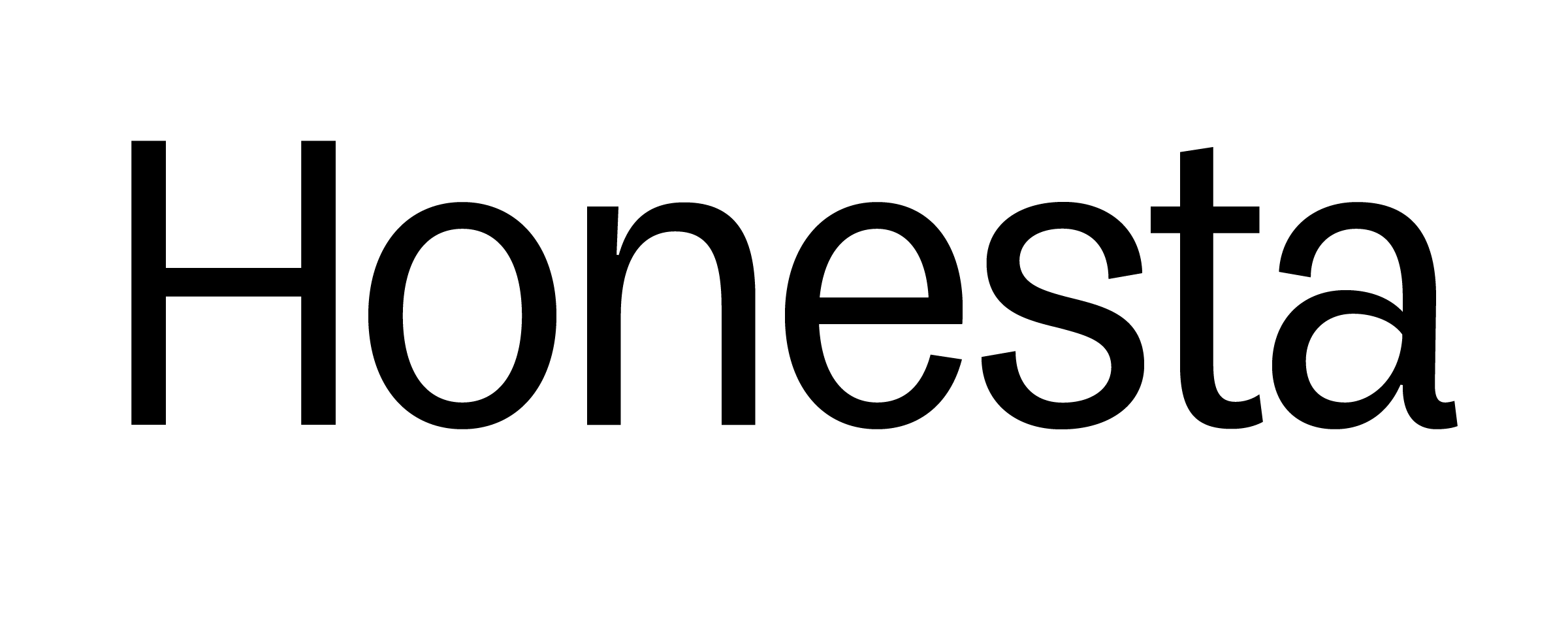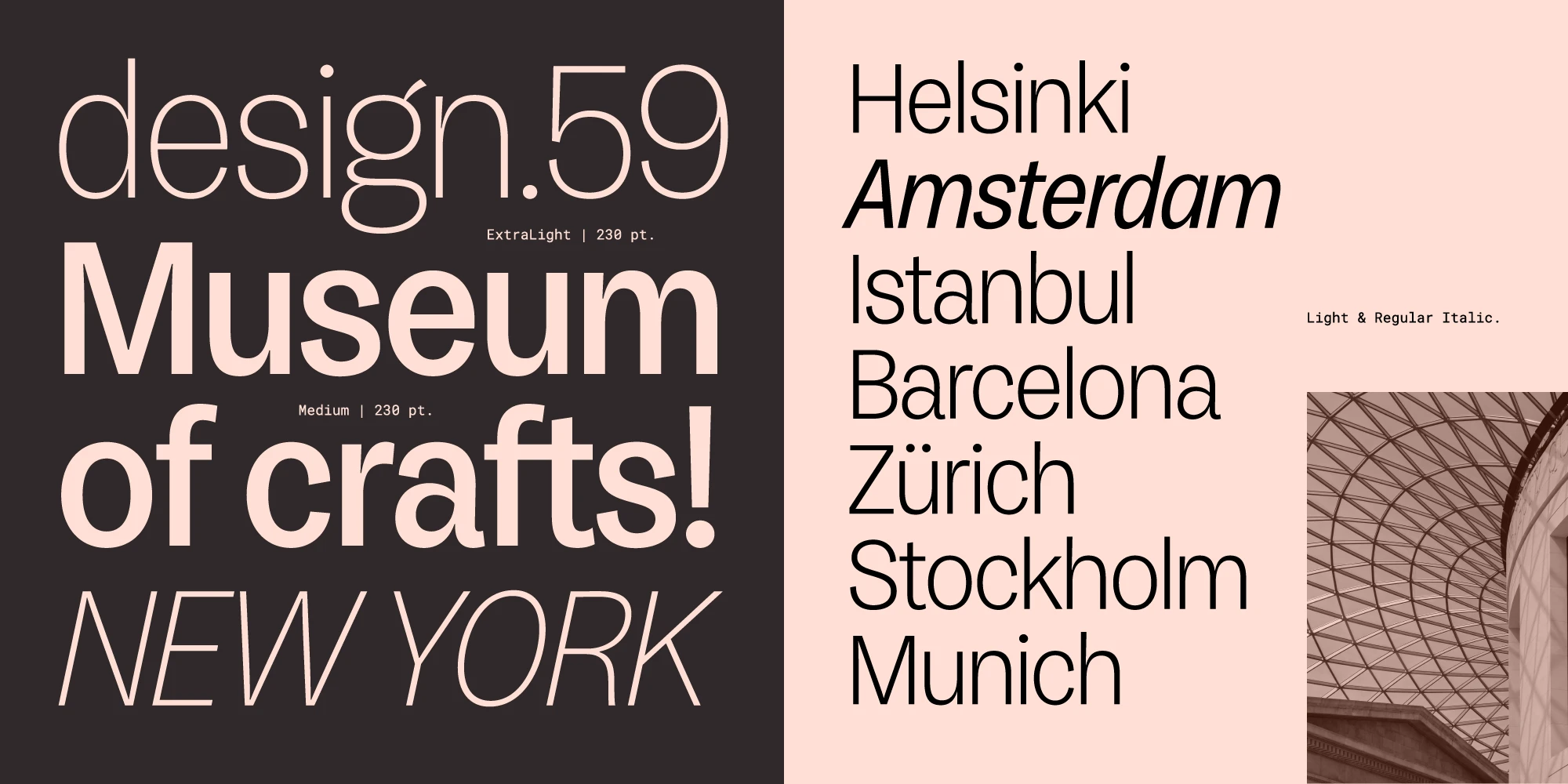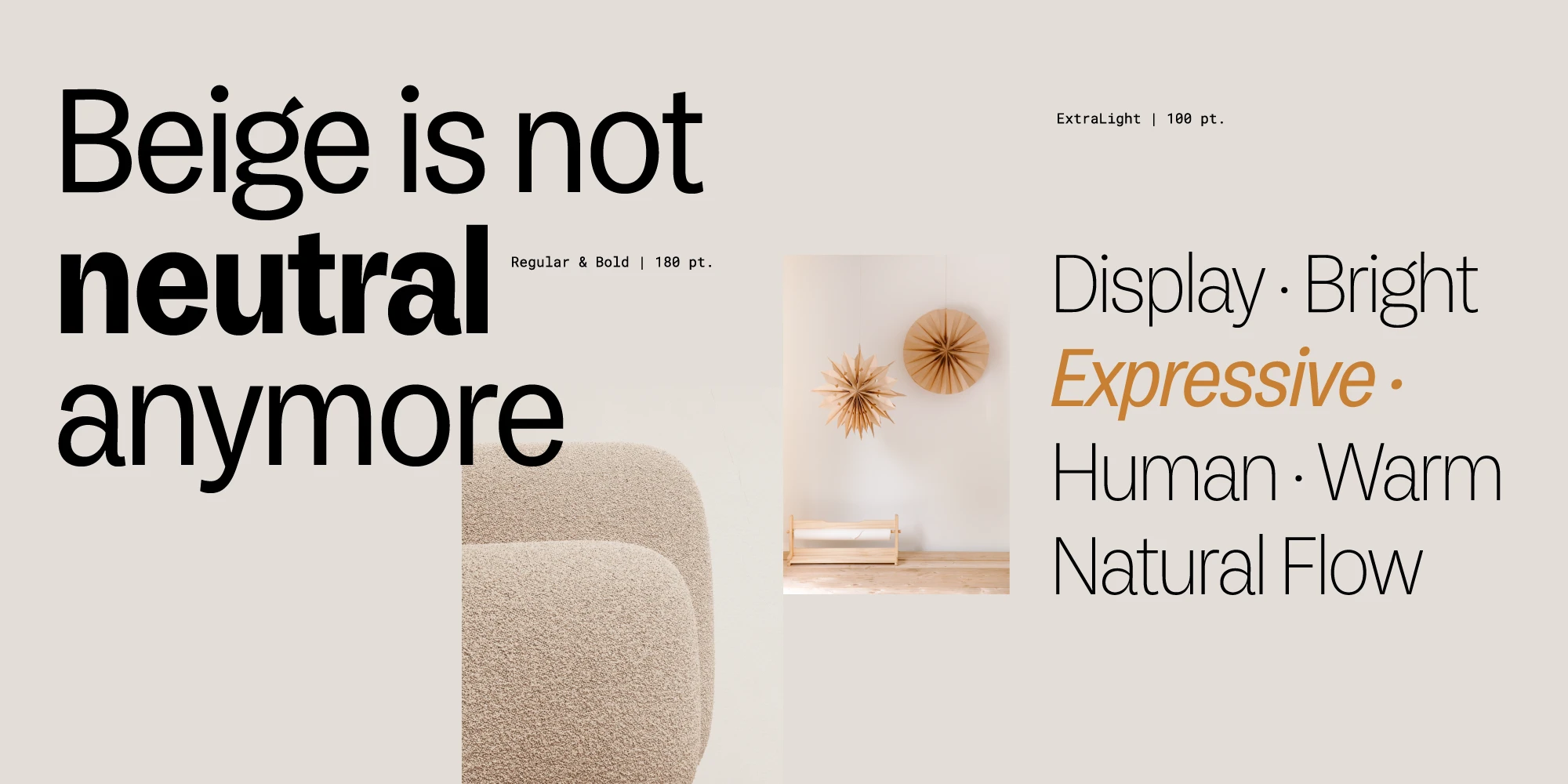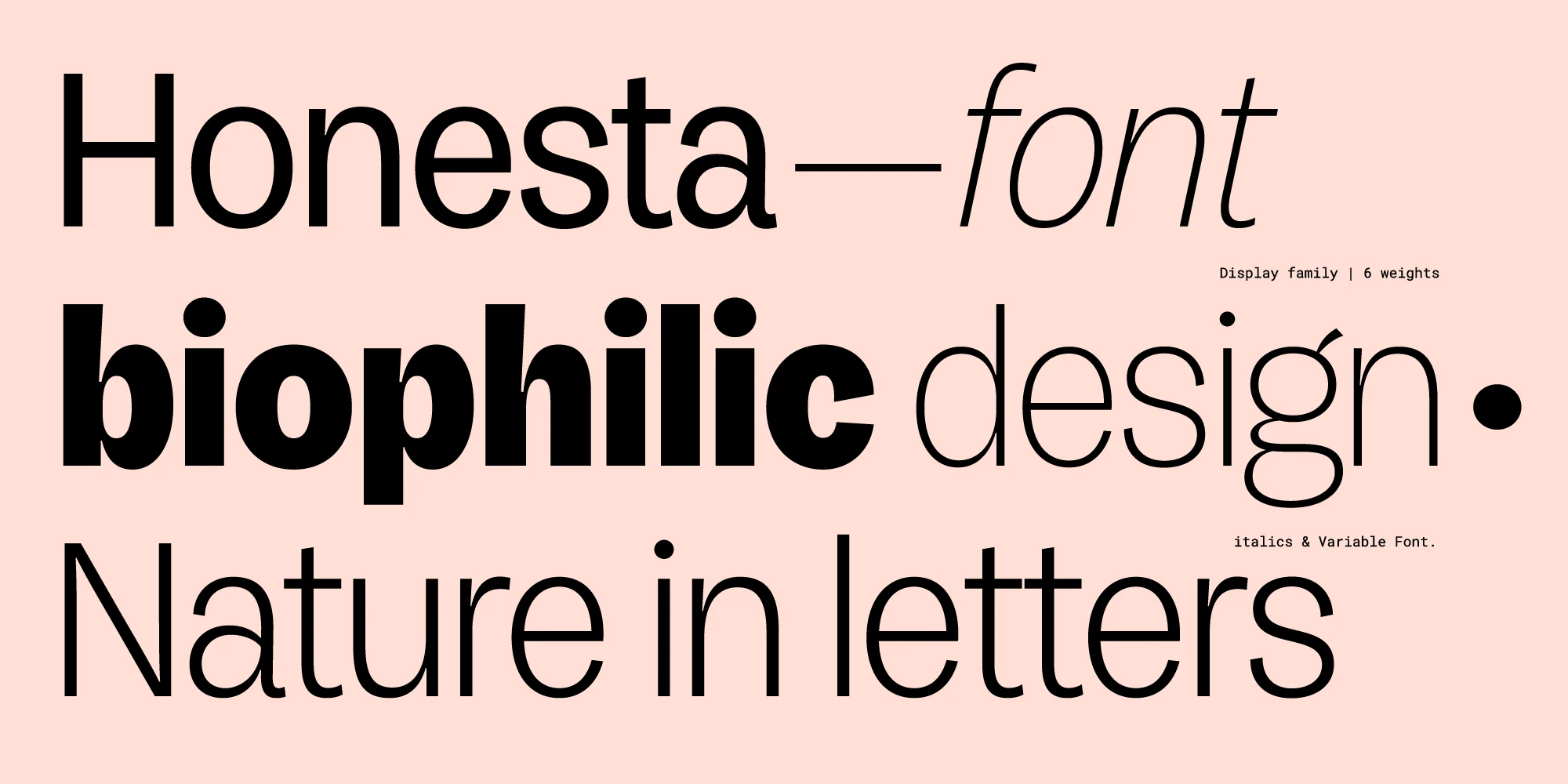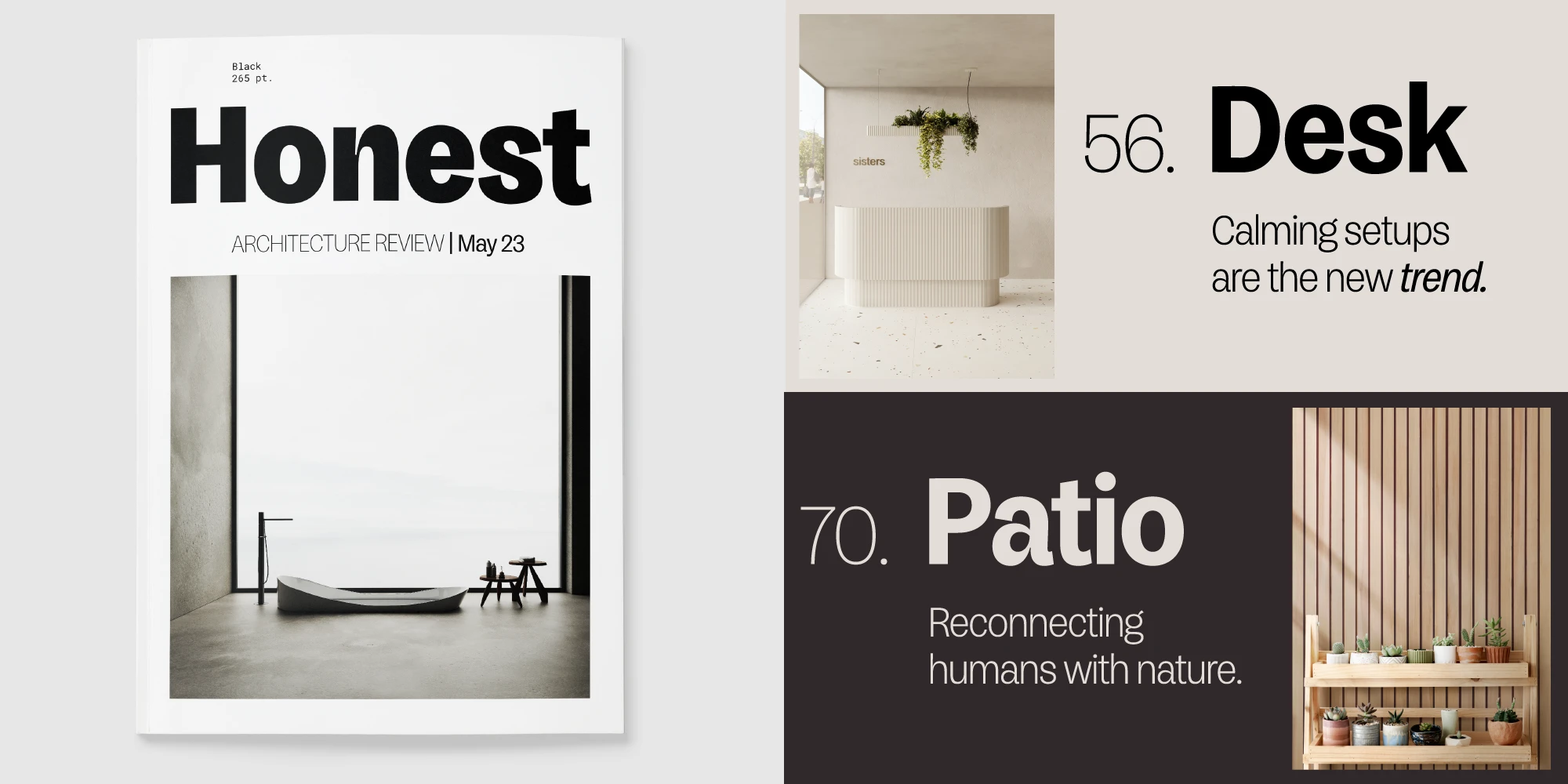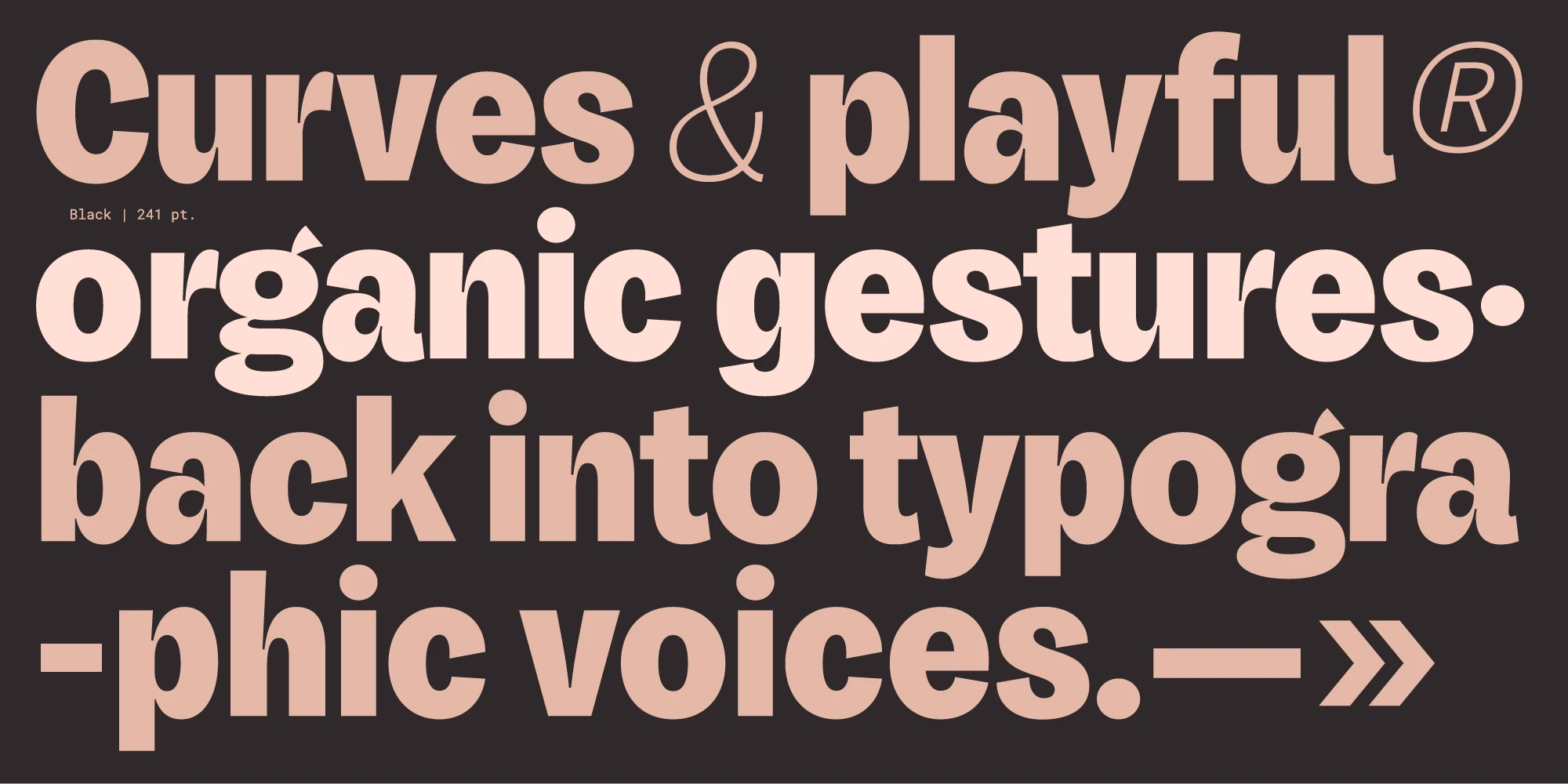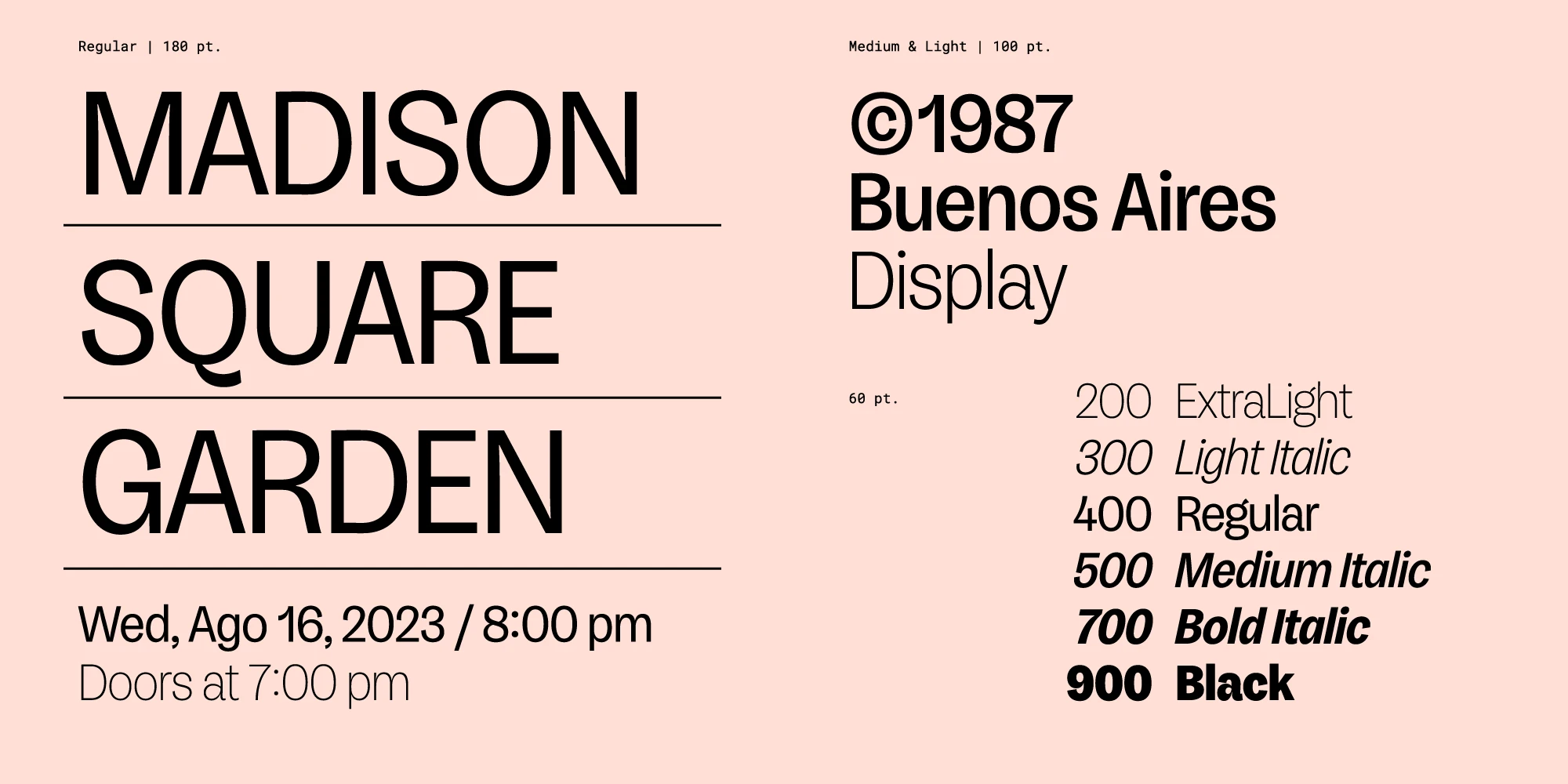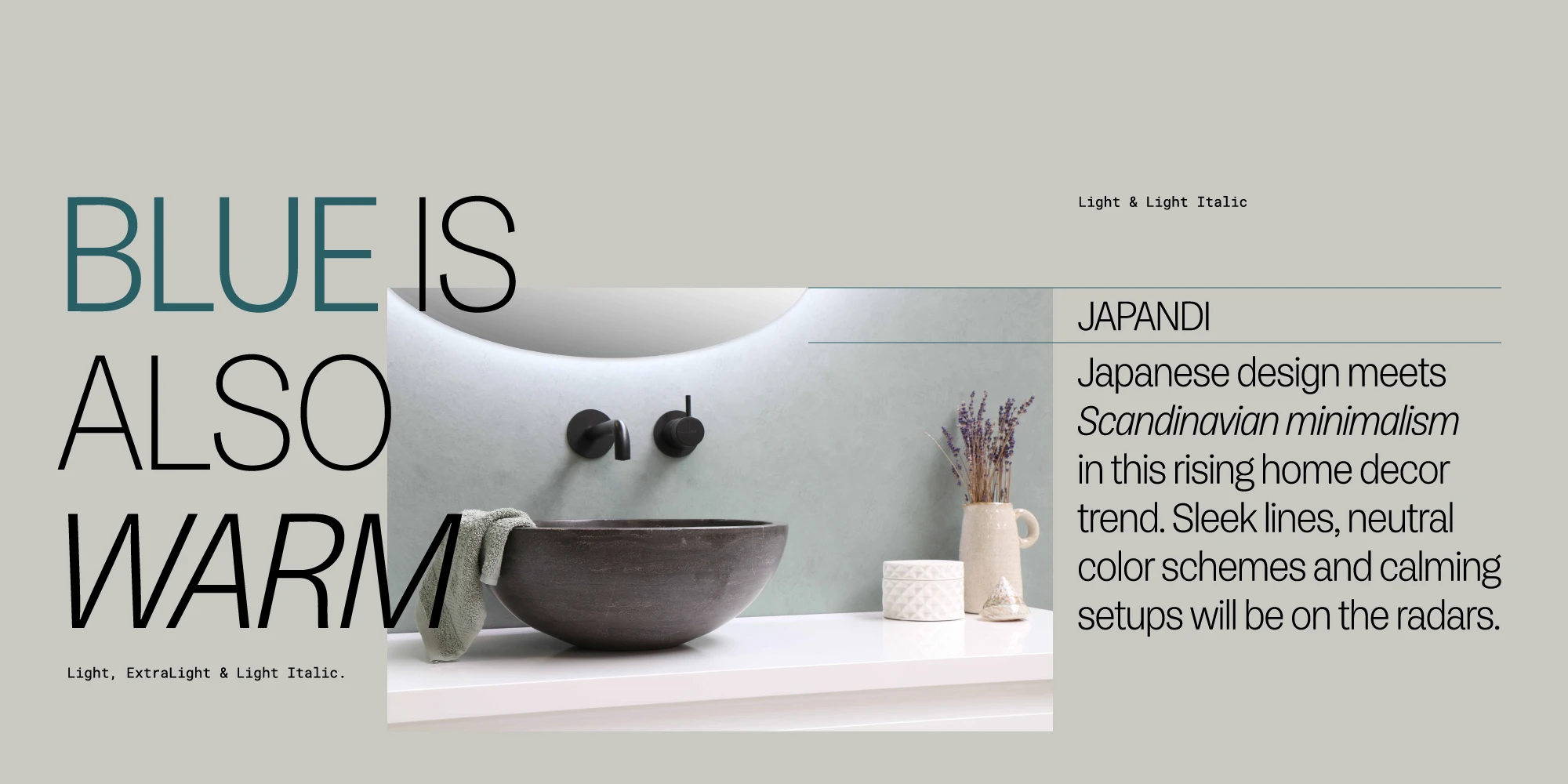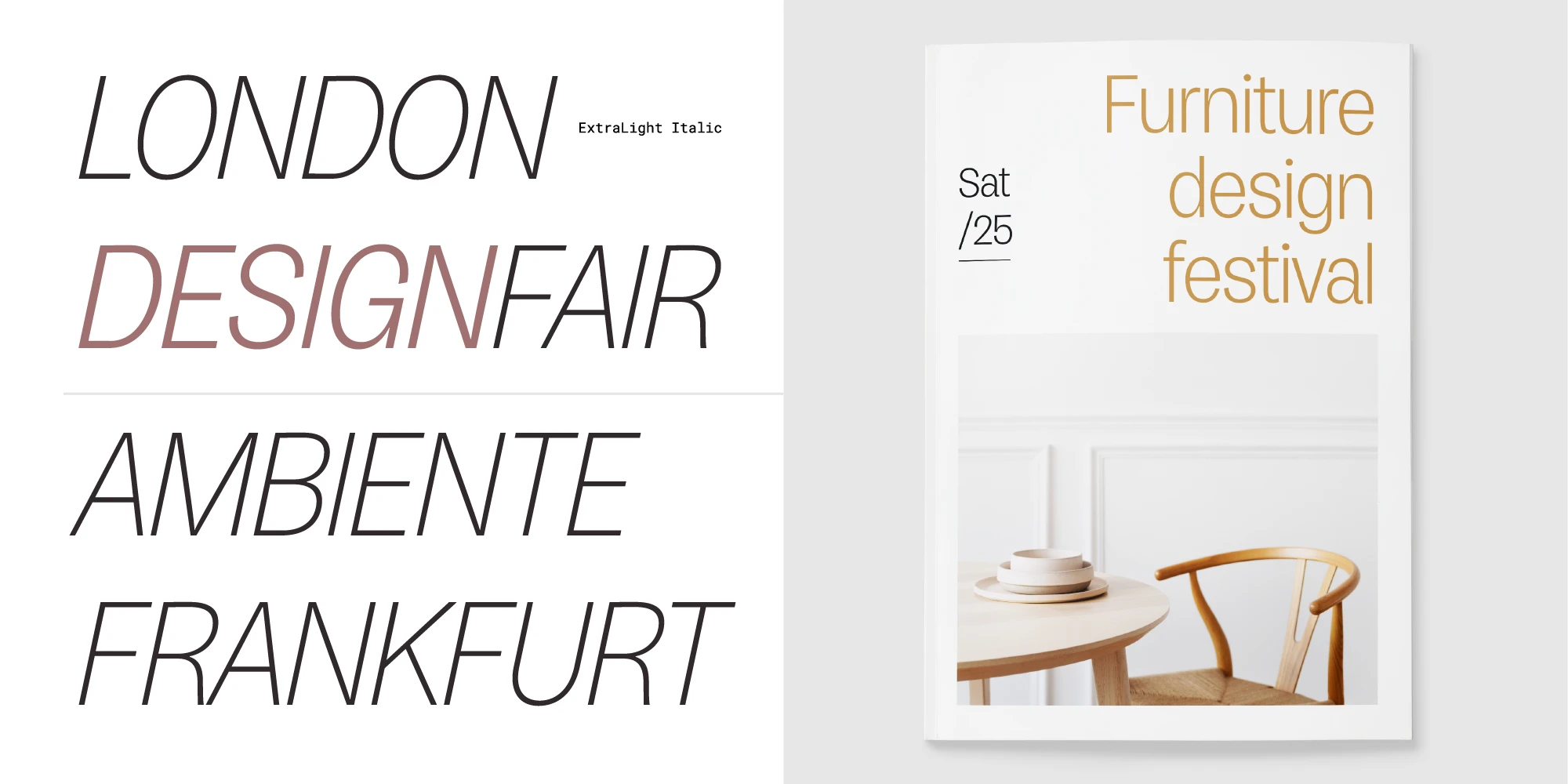
Honesta Font Family
Honesta — Spanish for honest — is a display grotesque typeface infused with an engaging human touch. The nuances found in the exaggerated contrast from stem to curve and the slightly angular terminals give what could be seen as ordinary a stylish appeal. It balances natural expression and digital clarity perfectly, offering a refreshed, modern sans for typographic designers wanting a little bit of the unexpected. Honesta is a 12-style family, including true italics and variable fonts.
Honesta font by Typesenses — the words “design.59”, “Museum of crafts!”, and “NEW YORK” in sans-serif upright and italic styles, and a list of cities including “Helsinki” and “Amsterdam” in sans-serif upright and italic styles, next to a photo of a glass-domed ceiling.
Honesta font by Typesenses — the words “Beige is not neutral anymore” in sans serif, with “neutral” in bold, and a list of descriptive words including “Expressive” in italic orange.
Honesta font by Typesenses — the words “Honesta” and “biophilic” in upright sans-serif, “font” and “design” in italic sans-serif, and “Nature in letters” in upright sans-serif, with small text “Display family | 6 weights” and “italics & Variable Font”
Honesta font by Typesenses — a magazine cover with the sans serif word “Honest” in black, and two article previews with sans serif numbers and titles, one with an italicized word “trend”
Honesta font by Typesenses — the words “Curves & playful® organic gestures. back into typogra-phic voices. — »” in a sans-serif typeface with high contrast between thick and thin strokes.
Honesta font by Typesenses — the words “MADISON SQUARE GARDEN” in upright sans serif, “Wed, Ago 16, 2023 / 8:00 pm” and “Doors at 7:00 pm” in upright sans serif, "©1987 Buenos Aires Display” in upright sans serif, and a list of weights with some italic sans serif examples.
Honesta font by Typesenses — the words “BLUE IS ALSO WARM” in upright sans-serif letters, with “BLUE” in teal and the rest in black, next to a bathroom sink with a vase of lavender and text about “JAPANDI” in italic sans-serif.
Honesta font by Typesenses — the words “LONDON”, “DESIGNFAIR”, “AMBIENTE”, and “FRANKFURT” in italic sans serif, with “ExtraLight Italic” in smaller upright text, and a brochure with “Sat /25” and “Furniture design festival” above a photo of a wooden table and chair.